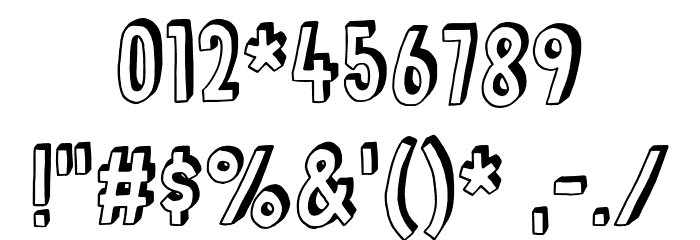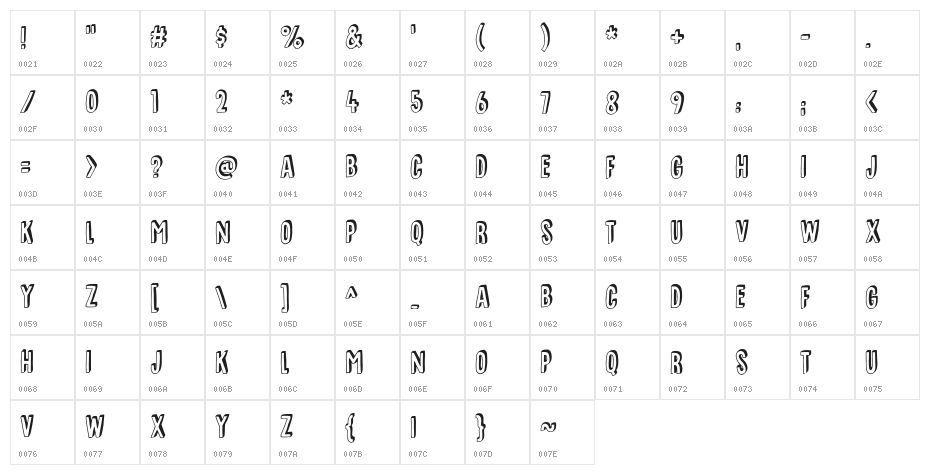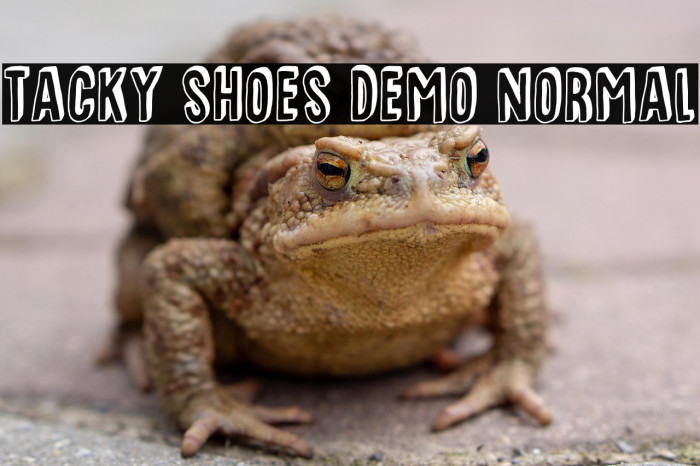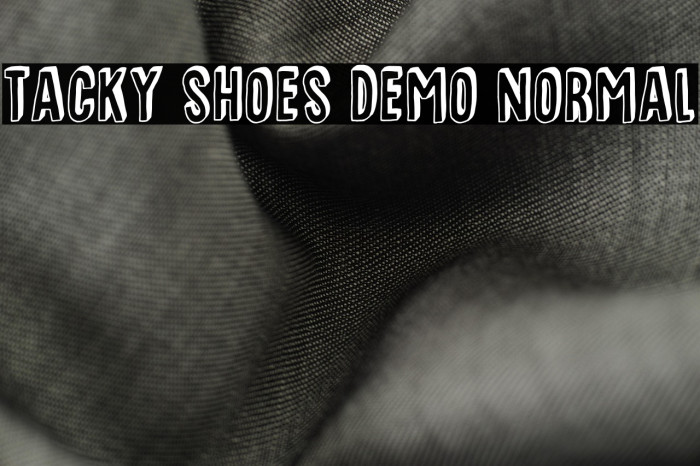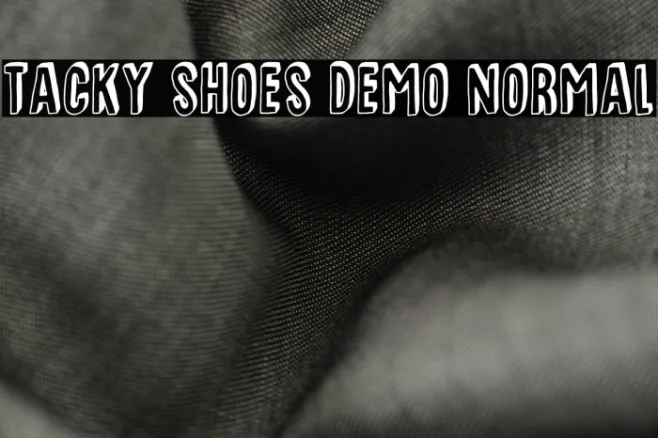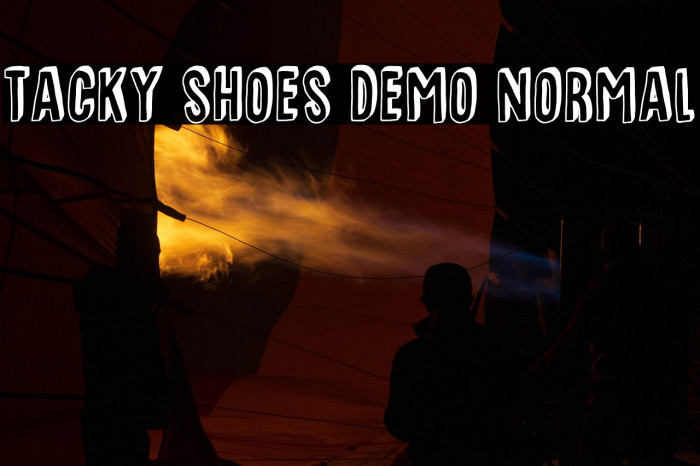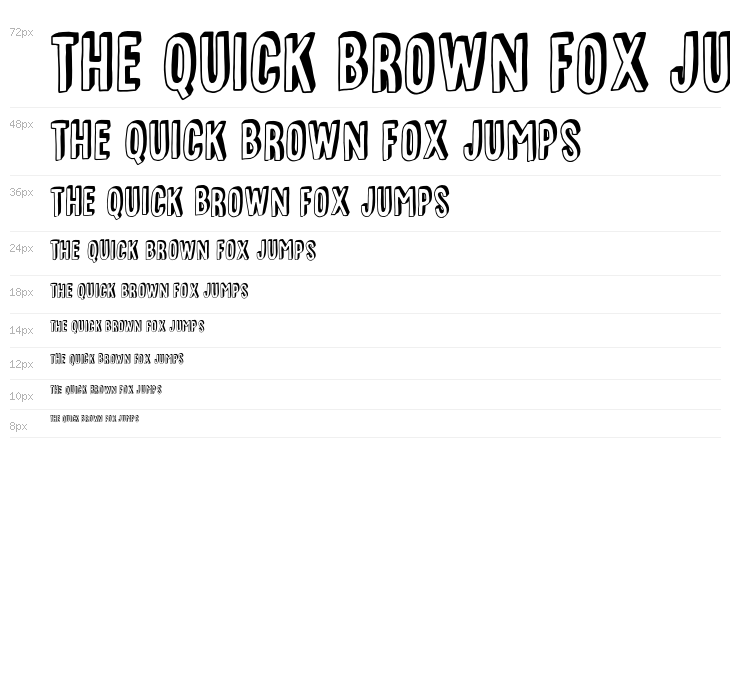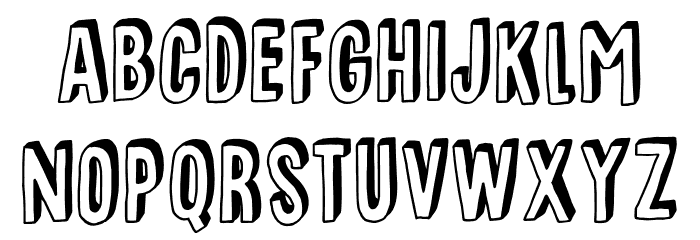
Tacky Shoes DEMO Normal Font
Tacky Shoes DEMO Normal Description
This font features a playful and bold style with a hand-drawn appearance. Each character is outlined, creating a shadow effect that adds depth and dimension. The letters are uppercase, with a consistent height and width, giving a uniform look. The numbers and special characters follow the same design, maintaining the playful and informal aesthetic. The font's unique style makes it stand out, perfect for projects that require a fun and engaging visual element.
| Overall Style | Playful, Hand-drawn |
| Proposed Projects | Ideal for children's books, comic strips, playful branding, and posters. |